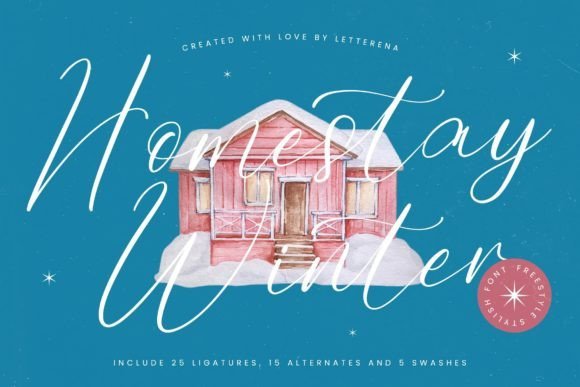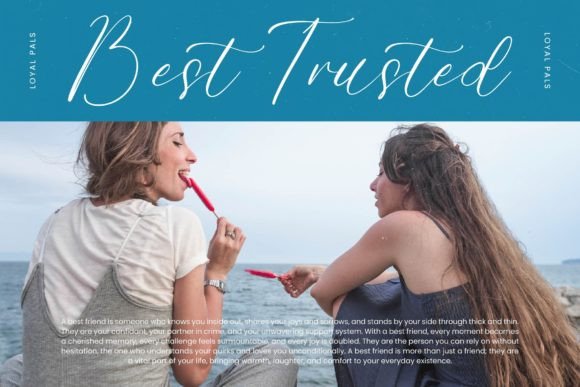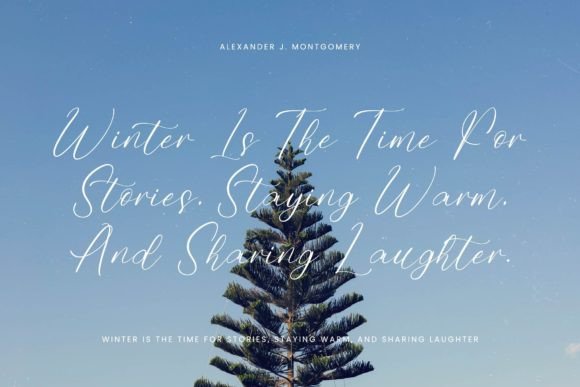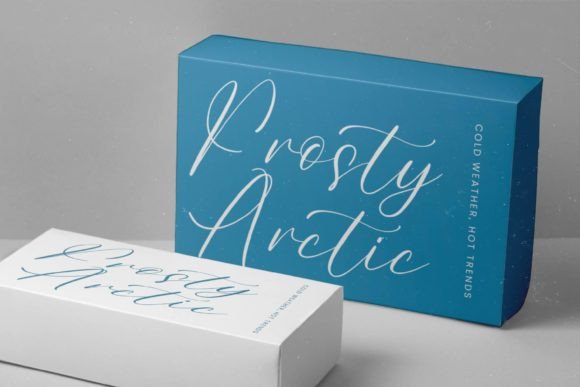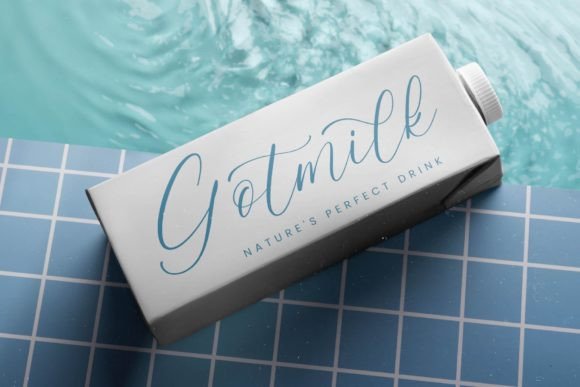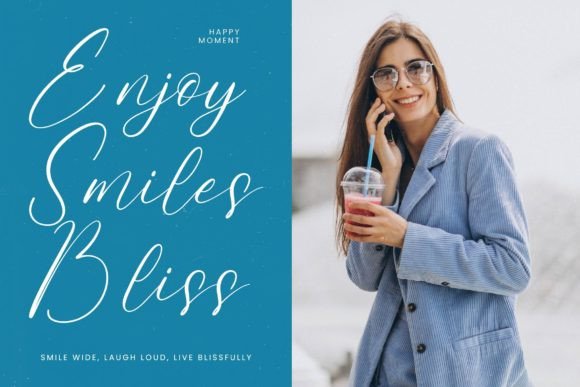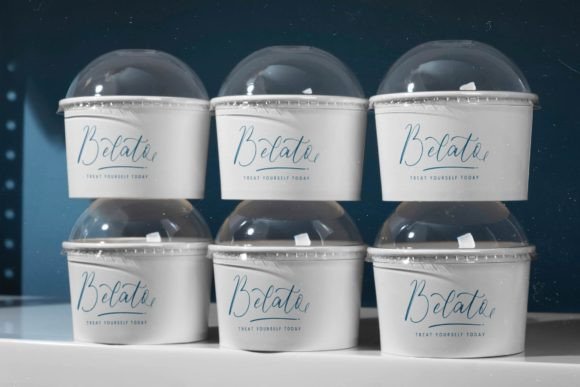
Embracing the Luxury of Winter
As the snowflakes gently fall outside, and the fireplace crackles to life, I find myself lost in the creative world of typography. There’s something magical about the way a font can evoke the feeling of a cozy winter evening, don’t you think? For designers, the perfect font can be the difference between a project that’s merely good and one that’s truly exceptional.
Enter Homestay Winter Font, a Luxury Script font designed by Letterena that’s perfect for any project that needs a touch of elegance and sophistication. Whether you’re working on a logo, branding project, or product packaging, Homestay Winter Font is sure to add a luxurious feel to your design. Its versatility and high-end aesthetic make it a valuable addition to any designer’s toolkit.
Homestay Winter Font Key Features
- Font Family: Homestay Winter is a beautiful script font designed to evoke a sense of warmth and coziness, perfect for winter-themed designs.
- Unique Characteristics: Homestay Winter features beautiful, flowing lines and subtle texture, giving it a unique and organic feel.
- Font Style: This font is designed to be used as a script font, adding a touch of elegance and sophistication to any design.
Designer Review: Homestay Winter Font
Overall, I’m impressed with the Homestay Winter Font. It has a certain charm that makes it stand out from other fonts. Here are some things that work well:
- ✨ Unique and creative design: The font has a distinct, hand-drawn feel that’s perfect for adding a touch of personality to your designs.
- ✨ Versatile: Despite its winter theme, the font can be used for a variety of projects, from invitations to social media graphics.
- ✨ Well-spaced: The font is well-designed, making it easy to read even at smaller sizes.
- ⚠️ Limited character set: The font only includes a limited set of characters, which may make it difficult to use for longer blocks of text.
- ⚠️ Not ideal for body text: While the font is great for headings and titles, it may not be the best choice for body text due to its irregular spacing and letterforms.
Overall, I think the Homestay Winter Font is a great addition to any designer’s toolkit. Its unique design and versatility make it a great choice for adding a touch of personality to your projects. Just be aware of its limitations and use it judiciously.
Tips for Getting the Most Out of Homestay Winter Font
Use the font in conjunction with winter-themed design elements and colors.
Pair the font with bold, winter-inspired graphics and textures for added depth.
Alternatives to Homestay Winter Font
Winter Script
Winter Script is a beautiful, elegant font perfect for winter-themed designs. It’s ideal for creating a cozy atmosphere and can be used for headings, titles, and quotes. Compared to Homestay Winter Font, Winter Script has a more classic and traditional feel, while Homestay Winter Font is more modern and minimalist.
Great Vibes is a modern, script font that’s perfect for creating a warm and inviting atmosphere. It’s ideal for use in headings, titles, and body text. Compared to Homestay Winter Font, Great Vibes has a more relaxed and casual feel, while Homestay Winter Font is more formal and elegant.